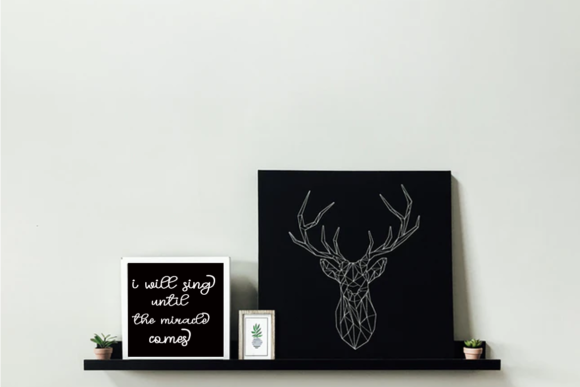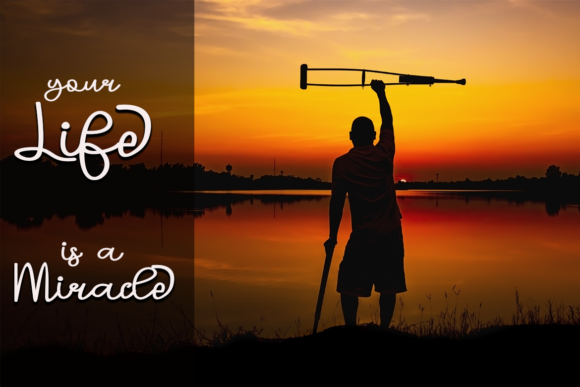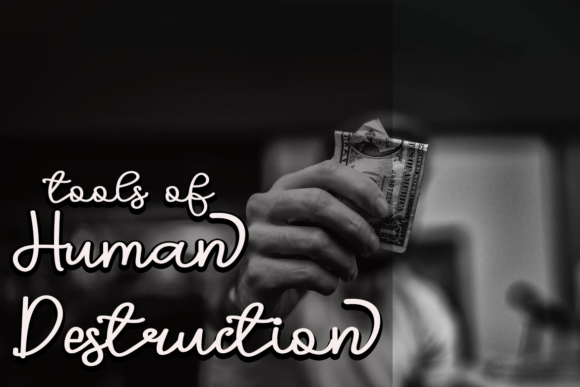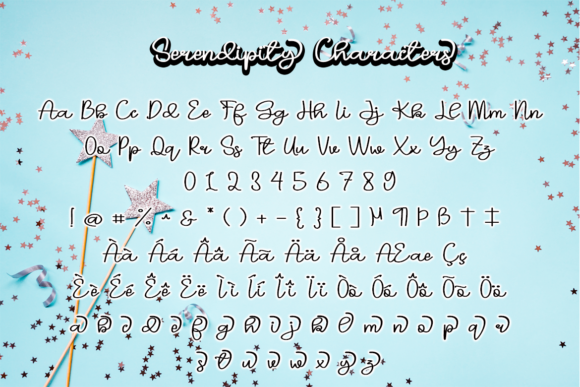
About Serendipity Font
“Serendipity” is an exquisite and enchanting handwritten font that effortlessly embodies elegance and grace. Its flowing and delicate style adds a touch of sophistication to a wide range of design projects, making it a perfect choice for wedding invitations, thank you cards, quotes, greeting cards, logos, business cards, and any other design that requires a handwritten touch. Here are the captivating features that make “Serendipity” stand out:
Elegance and Flow: The smooth and fluid lines of “Serendipity” create a sense of elegance and refinement. Its graceful curves and gentle strokes give your designs a luxurious and sophisticated appeal, making them truly stand out.
Versatile Application: From intimate wedding invitations to professional branding materials, “Serendipity” seamlessly adapts to various design needs. Its versatile nature ensures that it complements both formal and casual occasions, adding a touch of charm to every project.
Timeless Beauty: With its classic and timeless aesthetic, “Serendipity” transcends trends and fads. Its enduring appeal ensures that it remains captivating and relevant, making it a font that will never go out of style.
Enhanced Expressiveness: The elegant and flowing nature of “Serendipity” allows you to express emotions and sentiments with grace. Whether you’re conveying heartfelt messages or creating striking logos, this font adds a touch of emotive beauty to your designs.
Refined Glyphs and Alternates: “Serendipity” is thoughtfully designed with refined glyphs and alternates, offering you the opportunity to add intricate details and decorative elements to your projects. This feature empowers you to customize and personalize your designs with ease.
Memorable Impressions: By leveraging the elegance and flowing charm of “Serendipity,” you can create designs that leave a lasting impact. Its enchanting style captures the attention of viewers, making your creations truly memorable.
“Serendipity” is the perfect font to infuse your designs with an air of elegance and sophistication. Its graceful and flowing nature brings a touch of magic to your projects, leaving a lasting impression on your audience. Whether it’s a heartfelt wedding invitation or a captivating business logo, “Serendipity” elevates your designs with a sense of timeless beauty and charm. Embrace the elegance of “Serendipity” to create stunning and memorable designs that capture the hearts of those who encounter them.